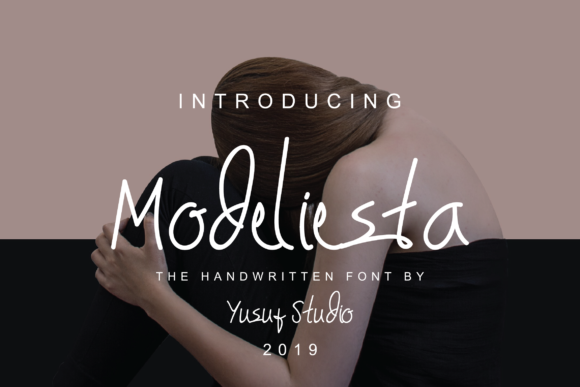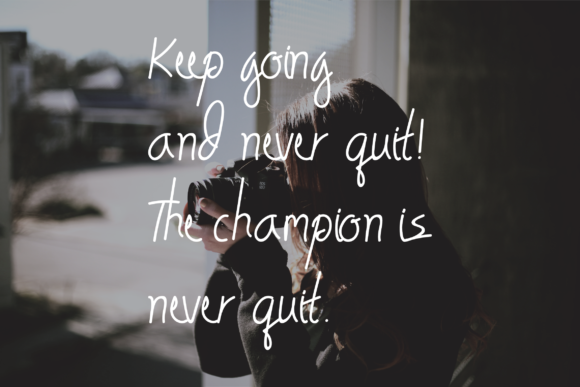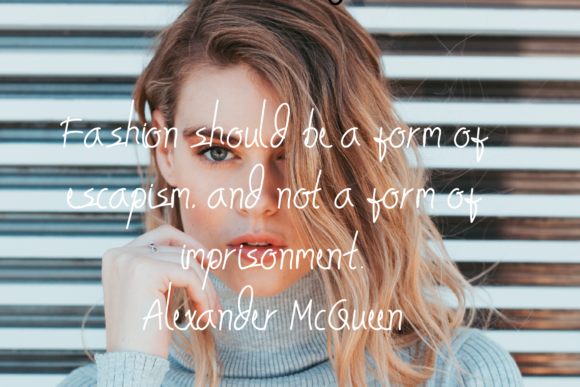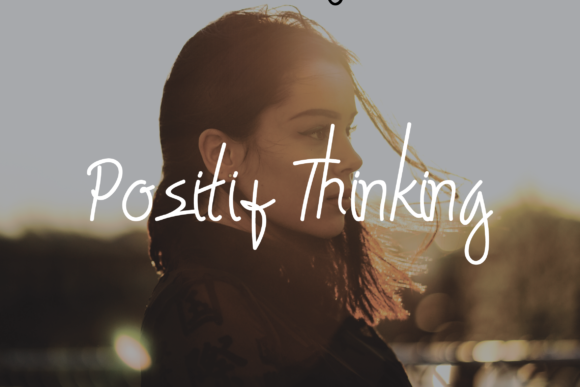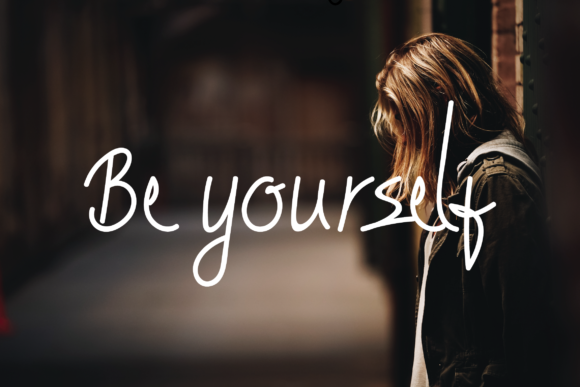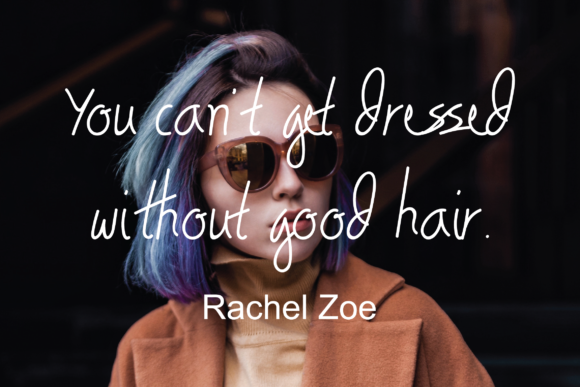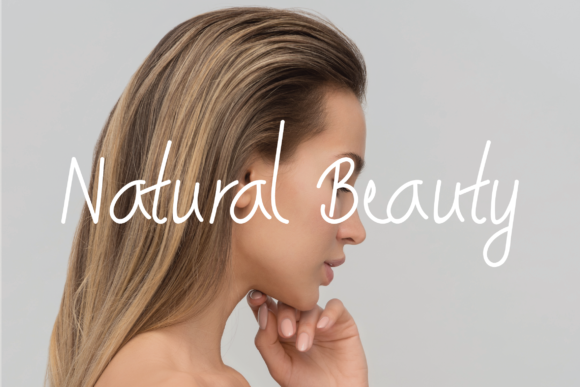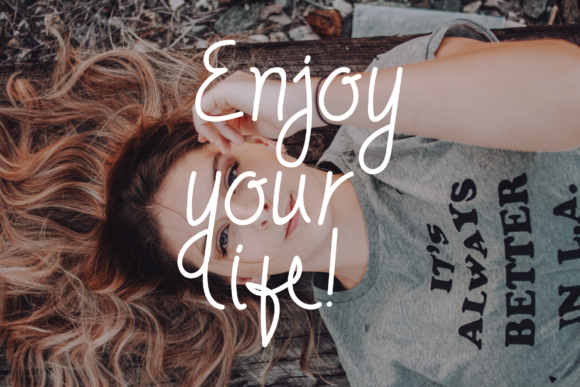
Modeliesta Font
About Modeliesta Font
The Modeliesta is a fresh handwritten script font. Its handwritten style has an elegant and classy feel and is perfect for adding a natural touch to your designs.